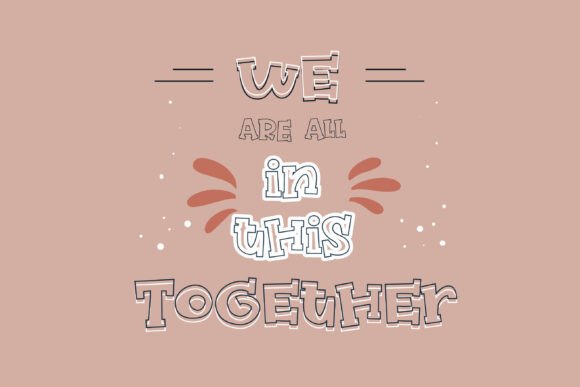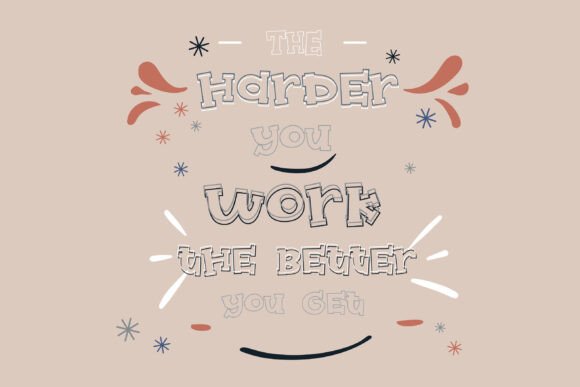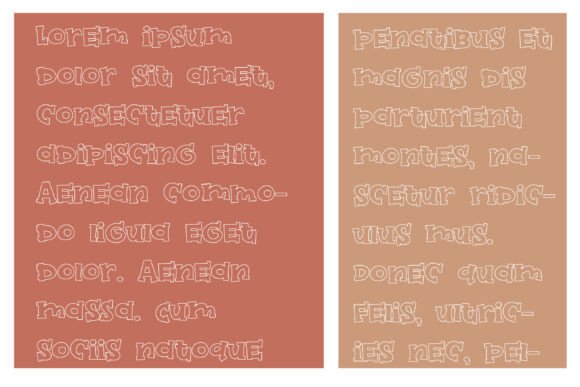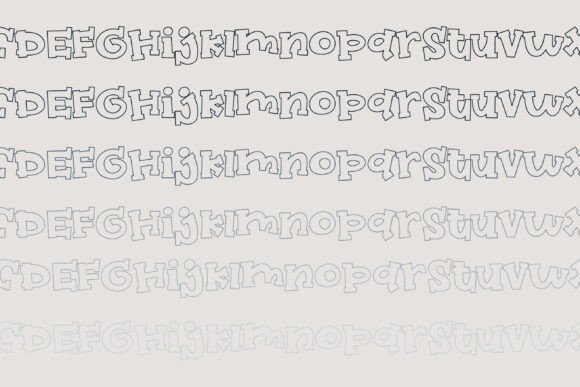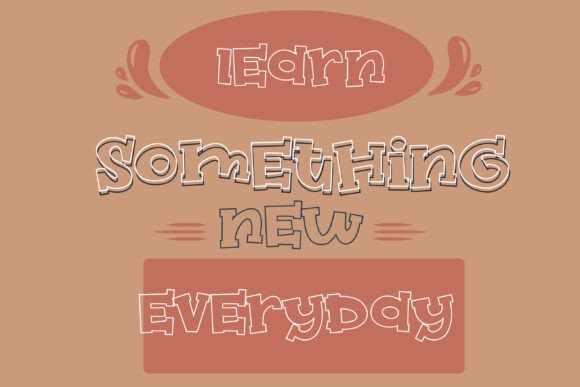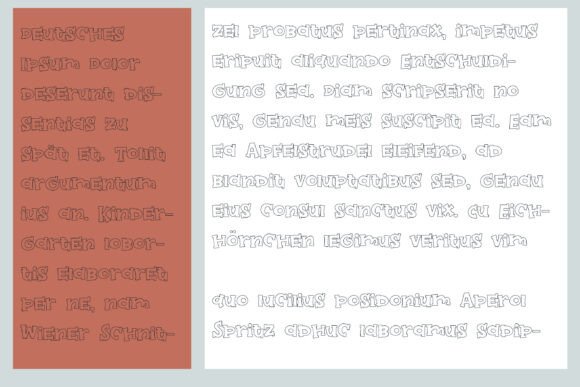
Discovering the Whimsy of Hand-Crafted Fonts
Do you ever find yourself scribbling down ideas in a notebook, and before you know it, a beautiful, quirky font has emerged? That’s exactly what happened to designers who discovered the Bellyfat Font – a hand-crafted font that’s as charming as it is versatile. With its chunky, thick lettering and whimsical flair, Bellyfat Font is perfect for adding a personal touch to your designs.
Bellyfat Font is designed to evoke the feeling of handwritten invitations and greeting cards, making it a valuable addition to any designer’s toolkit. Whether you’re working on a wedding invitation or a children’s book, Bellyfat Font’s unique charm is sure to captivate your audience. And with its outline version included, you can easily customize your designs to fit your style.
Bellyfat Font Key Features
- Font Family: Bellyfat Font is a unique, hand-drawn font designed to resemble the imperfections of a belly fat, hence the name.
- Unique Characteristics: Bellyfat Font features a distinctive, hand-drawn look with varying line widths and subtle imperfections, giving it a personal and human touch.
- Character Set: The font includes a comprehensive character set, including Latin, Cyrillic, and Greek alphabets, as well as a range of punctuation and special characters.
Bellyfat Font Review
I recently had the chance to work with the Bellyfat Font, and I have to say, it’s a unique choice for any designer looking to add a bit of personality to their projects. Here are my honest thoughts on what works and what doesn’t.
- Its quirky, hand-drawn aesthetic makes it perfect for designs that need a bit of whimsy.
- The font’s irregularities give it a charming, human touch that can make your designs feel more approachable.
- It’s a great choice for titles, headings, and other text elements where you want to draw attention.
- The font’s irregularities can sometimes make it difficult to read, especially at smaller sizes.
- It may not be the best choice for body text, where clarity and legibility are crucial.
- It’s not a good fit for formal or professional designs where you want a more traditional, polished look.
Overall, I think Bellyfat Font is a fun, creative choice for designers who want to add some personality to their projects. Just be mindful of its limitations, and use it sparingly to avoid overwhelming your audience.
To get the most out of the Bellyfat font, use it for bold, eye-catching headlines or titles. It’s particularly effective for designing posters, flyers, or social media graphics.
- Poster design
- Flyer design
- Social media graphics
- Headline design
Alternatives to Bellyfat Font
Playfair Display is an elegant, high-end serif font ideal for luxury branding, invitations, and high-end fashion designs. It features a classic, sophisticated look that’s perfect for creating a sense of opulence and refinement.
Compared to Bellyfat Font, Playfair Display is more refined and polished, while Bellyfat Font has a more playful and whimsical feel.
Great Vibes is a modern, handwritten font that’s perfect for creating a relaxed, casual atmosphere. It’s ideal for use in logos, branding, and advertising for companies that want to convey a sense of friendliness and approachability.
Compared to Bellyfat Font, Great Vibes is more casual and laid-back, while Bellyfat Font has a more playful and quirky feel.